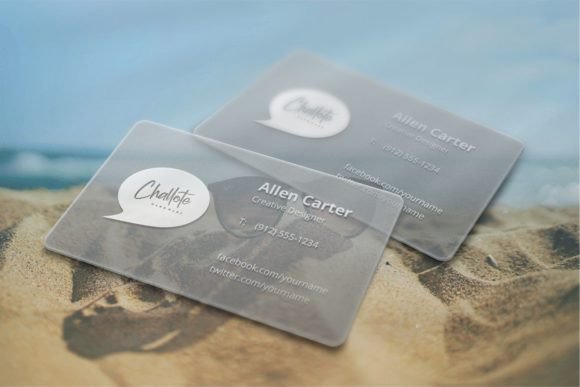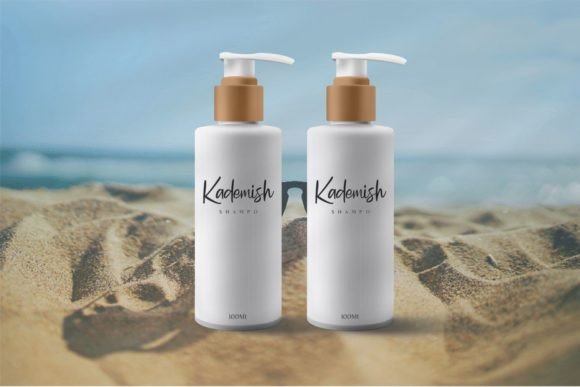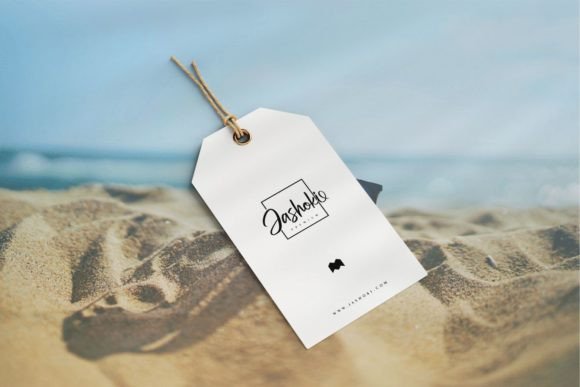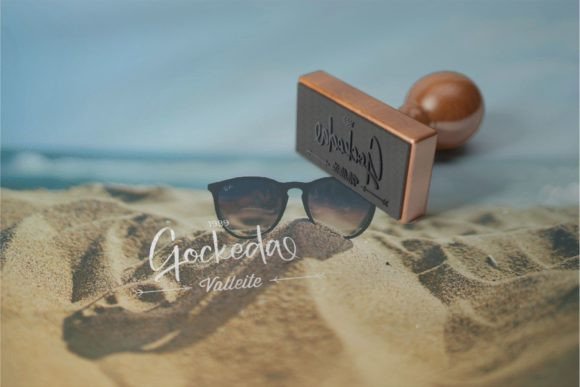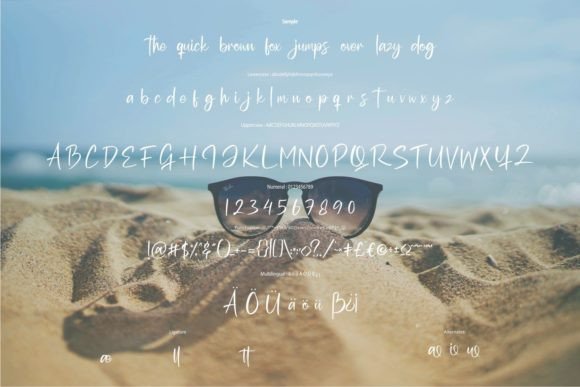
Belluta Font: Elevate Your Designs with Modern Calligraphy
Belluta is a stunning modern script font that embodies the elegance of calligraphy. Its unique and flowing style makes it perfect for a wide range of design projects, from invitations and greeting cards to branding materials, business cards, quotes, posters, and more. In this article, we’ll dive into the world of Belluta Font, exploring its features, uses, and benefits for designers and crafters.
What is Belluta Font?
Belluta Font is a modern script font designed to bring a touch of sophistication and glamour to your designs. Its calligraphy style is characterized by flowing lines, elegant curves, and a sense of movement, making it perfect for creating beautiful and eye-catching text. Whether you’re a designer, crafter, or DIY enthusiast, Belluta Font is an excellent choice for adding a personal touch to your projects.
Key Features of Belluta Font
- Modern Script Style: Belluta Font boasts a modern script style that is both elegant and versatile.
- Calligraphy Inspiration: The font’s calligraphy inspiration adds a touch of sophistication and glamour to your designs.
- Flowing Lines: Belluta Font features flowing lines and elegant curves, making it perfect for creating beautiful and eye-catching text.
- Highly Versatile: The font is suitable for a wide range of design projects, from invitations and greeting cards to branding materials and posters.
Uses of Belluta Font
Belluta Font is an incredibly versatile font that can be used for various design projects. Here are some ideas to get you started:
- Invitations: Add a touch of elegance to your wedding invitations, birthday parties, or baby showers with Belluta Font.
- Greeting Cards: Create beautiful and heartfelt greeting cards for special occasions, such as holidays, birthdays, or anniversaries.
- Branding Materials: Use Belluta Font to create stunning branding materials, including logos, business cards, and letterheads.
- Posters: Add a touch of sophistication to your posters, whether you’re promoting an event, product, or service.
- Quotes and Typography: Use Belluta Font to create inspiring quotes, typography art, or social media graphics.
Benefits of Using Belluta Font
Belluta Font offers several benefits for designers and crafters, including:
- Elegance and Sophistication: The font adds a touch of elegance and sophistication to your designs, making them stand out from the crowd.
- Versatility: Belluta Font is highly versatile, making it suitable for a wide range of design projects.
- Easy to Read: The font is easy to read, even in small sizes, making it perfect for body text or captions.
- Unique and Creative: Belluta Font allows you to add a personal touch to your designs, making them unique and creative.
Tips for Using Belluta Font
Here are some tips for getting the most out of Belluta Font:
- Experiment with Colors: Try pairing Belluta Font with different colors to create stunning contrast and visual interest.
- Mix and Match: Combine Belluta Font with other fonts to create a unique and creative typography style.
- Pay Attention to Spacing: Make sure to adjust the spacing between letters and words to create a beautiful and harmonious text flow.
- Add Decorations: Consider adding decorations, such as flourishes or swashes, to enhance the calligraphy style of the font.
Belluta Font is a stunning modern script font that can elevate your designs to the next level. Its elegant and sophisticated style makes it perfect for a wide range of design projects, from invitations and greeting cards to branding materials and posters. With its versatility, ease of use, and unique creative possibilities, Belluta Font is an excellent choice for designers and crafters looking to add a personal touch to their projects.